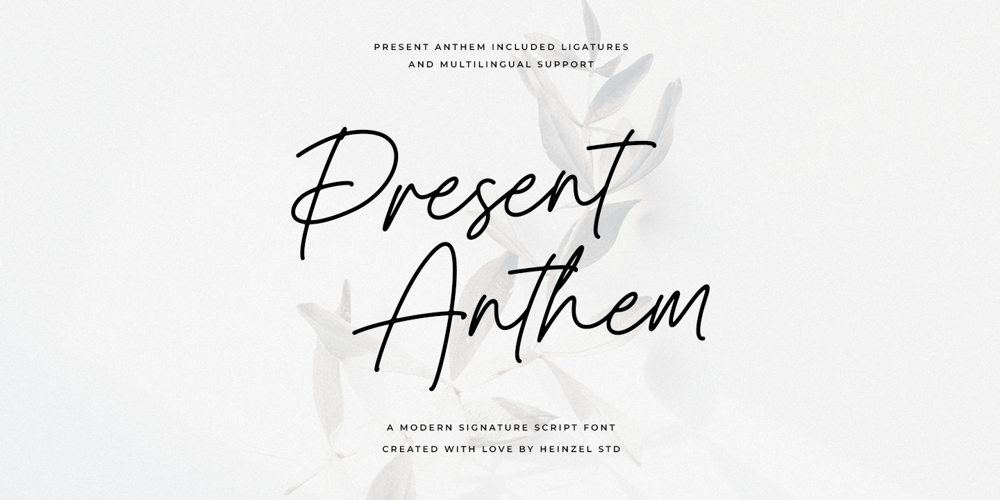
Present Anthem Font Family was designed by Nofi Sofyan Hadi and published by Heinzel Std. Present Anthem contains 1 styles and family package options. Present Anthem is a modern signature script font, described by an elegant touch, perfect for your favorite projects. It looks stunning on wedding invitations, thank you cards, quotes, greeting cards, logos, branding, business cards, social media posts, magazines, marketing materials, and every other design that needs a handwritten touch. Fall in love with its incredibly distinct and timeless style and use it to create spectacular designs!Present Anthem Features: Regular Version Uppercase and Lowercase Numerical and Punctuation Ligatures PUA Encoded Multilingual Language Easy To Use